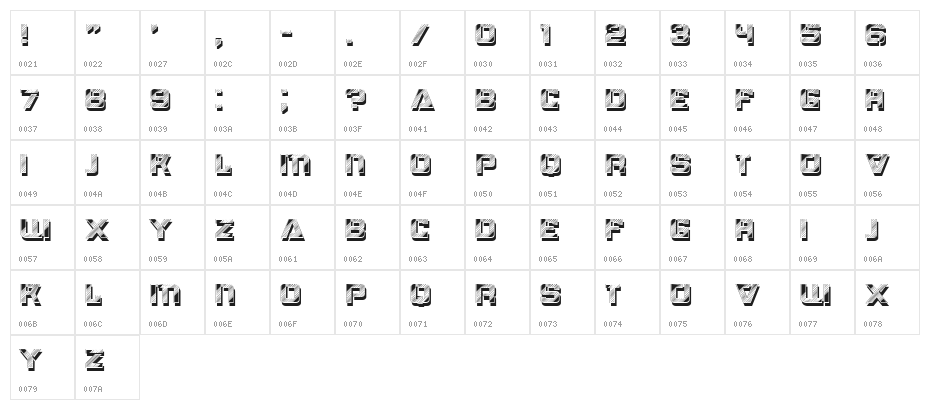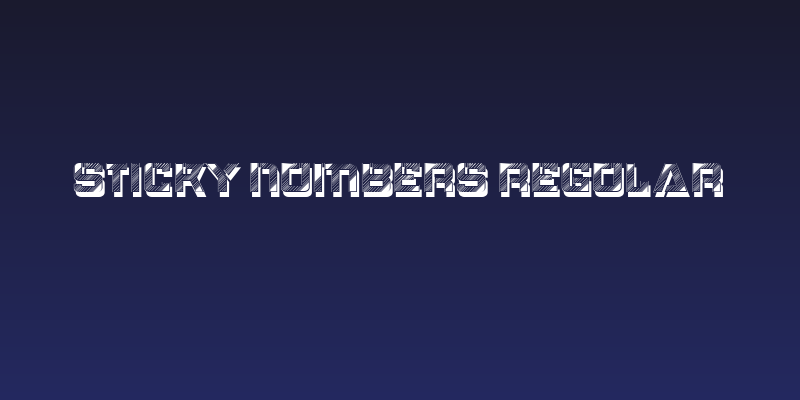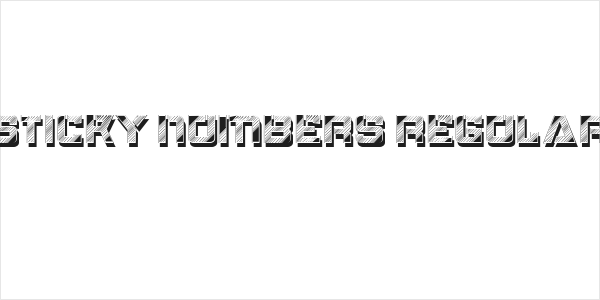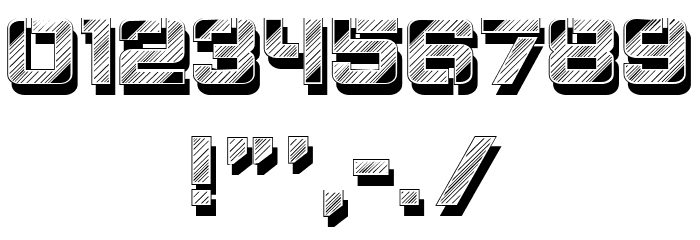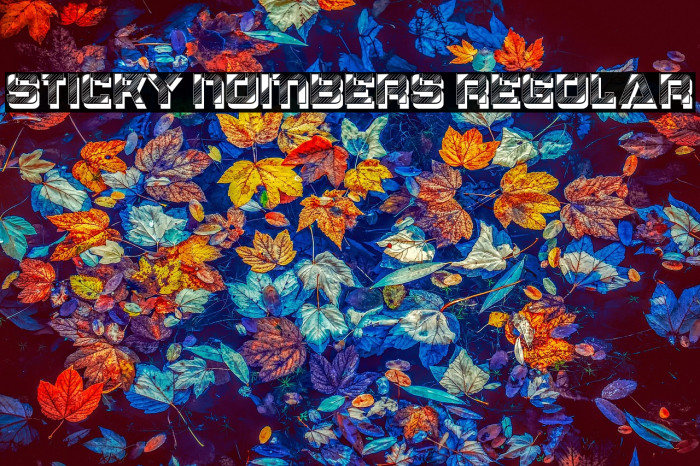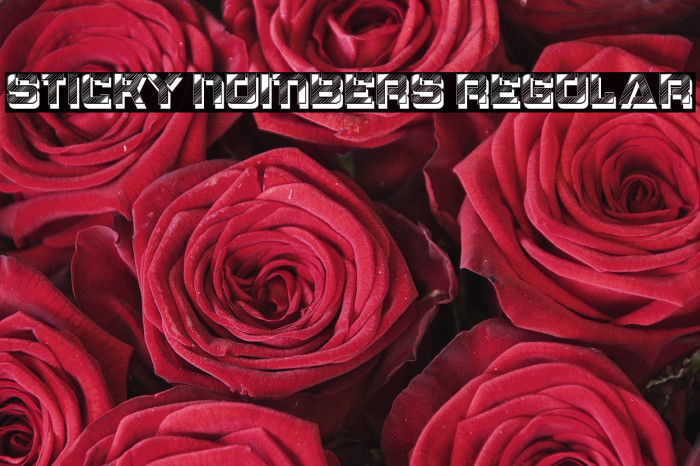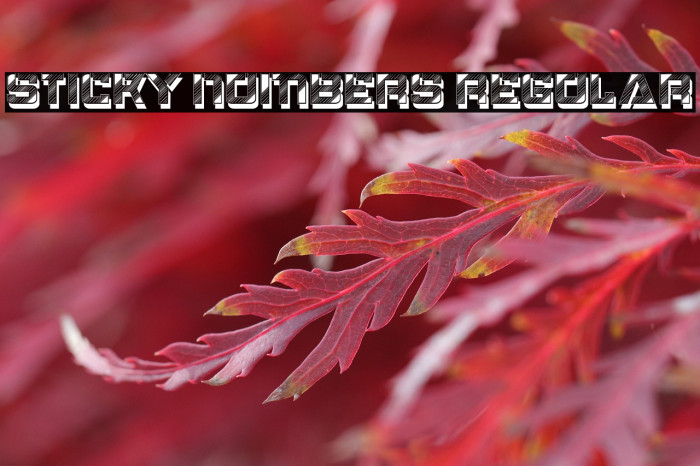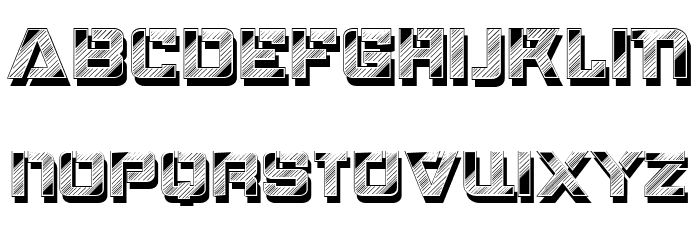
Sticky Numbers Regular Font
Sticky Numbers Regular Description
This font features a bold, decorative style with a three-dimensional effect created by diagonal lines and shadowing. The characters are uppercase with a strong geometric structure, giving them a modern and dynamic appearance. The diagonal lines within each character add texture and depth, enhancing the visual interest. The font is highly stylized, making it suitable for attention-grabbing designs. The numbers and special characters maintain the same bold and textured style, ensuring consistency across all glyphs.
| Proposed Projects | Ideal for posters, headlines, logos, and any design requiring a bold, eye-catching typeface. |